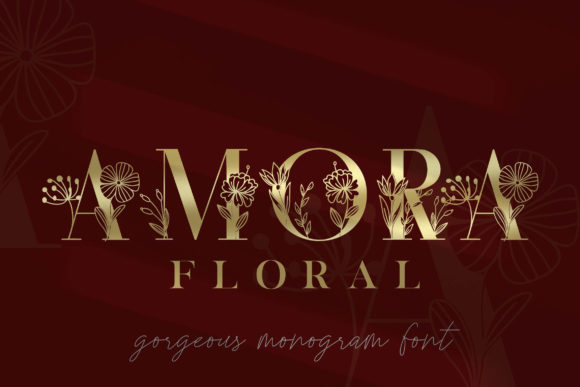
Introducing Amora Elegant Monogram Font: Elevate Your Designs with Romance and Elegance
Are you looking for a font that exudes romance, elegance, and sophistication? Look no further than the Amora Elegant Monogram Font. This beautiful, dainty, and unique decorative font is perfect for adding a touch of love and luxury to your designs. In this article, we’ll explore the features and benefits of Amora Elegant Monogram Font and how it can elevate your love letters, wedding invitations, and design projects.
What is Amora Elegant Monogram Font?
Amora Elegant Monogram Font is a carefully crafted decorative font that features intricate and delicate monogram designs. Each letter is meticulously designed to showcase a sense of romance and elegance, making it perfect for special occasions and events. The font’s unique and dainty style sets it apart from other fonts, making it a standout choice for designers and crafters.
Features of Amora Elegant Monogram Font
- Unique and Dainty Design: Amora Elegant Monogram Font features a one-of-a-kind design that is both delicate and sophisticated.
- Romantic and Lovely: The font’s intricate designs and elegant style evoke feelings of love and romance, making it perfect for wedding invitations, love letters, and other special occasions.
- Versatile: Amora Elegant Monogram Font can be used for a variety of design projects, including wedding planning, scrapbooking, and social media graphics.
- Elegant and Sophisticated: The font’s classic and timeless design ensures that your projects will look elegant and sophisticated, making it perfect for high-end designs.
Benefits of Using Amora Elegant Monogram Font
Using Amora Elegant Monogram Font can bring numerous benefits to your designs. Here are a few:
- Adds a Touch of Romance: The font’s romantic and lovely design adds a touch of love and luxury to your projects, making them perfect for special occasions.
- Enhances Visual Appeal: The font’s unique and dainty design ensures that your projects will stand out and grab attention.
- Perfect for Wedding and Love-Related Designs: Amora Elegant Monogram Font is specifically designed for wedding invitations, love letters, and other love-related designs, making it a perfect choice for wedding planners and designers.
- Increases Engagement: The font’s elegant and sophisticated design can increase engagement and make your projects more memorable.
Tips and Tricks for Using Amora Elegant Monogram Font
Here are a few tips and tricks to help you get the most out of Amora Elegant Monogram Font:
- Pair with Other Fonts: Pair Amora Elegant Monogram Font with other fonts to create a unique and visually appealing design.
- Experiment with Colors: Experiment with different colors and textures to add depth and interest to your design.
- Use for Branding: Use Amora Elegant Monogram Font for branding purposes, such as creating a logo or social media graphics.
- Make it Your Own: Don’t be afraid to experiment and make the font your own by adjusting the settings and adding your own personal touch.
In conclusion, Amora Elegant Monogram Font is a beautiful and unique decorative font that can elevate your designs and add a touch of romance and elegance. With its intricate designs, elegant style, and versatility, this font is perfect for wedding invitations, love letters, and other special occasions. Whether you’re a designer, crafter, or simply someone who loves beautiful typography, Amora Elegant Monogram Font is a must-have in your font collection.